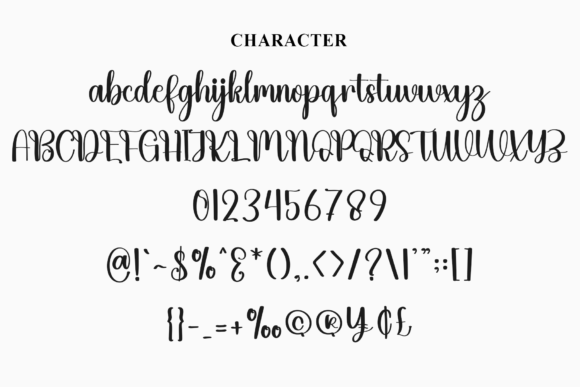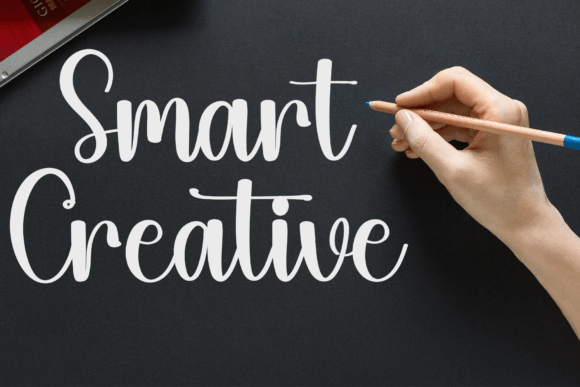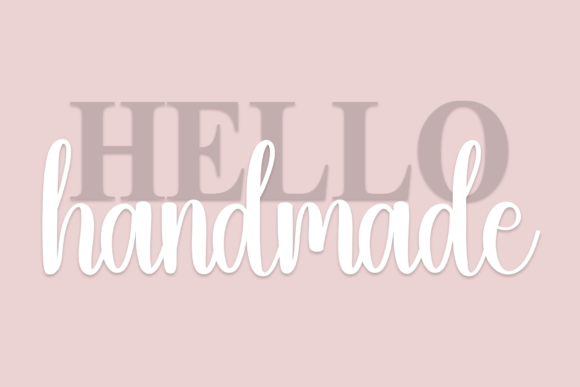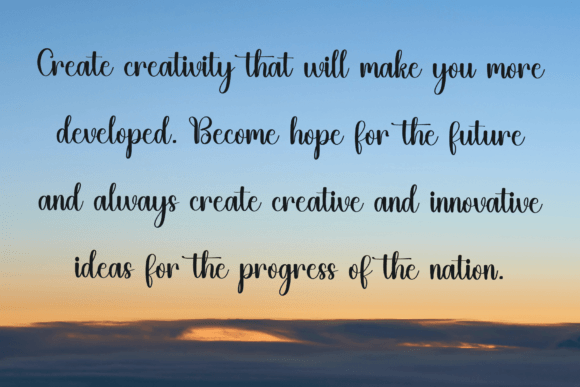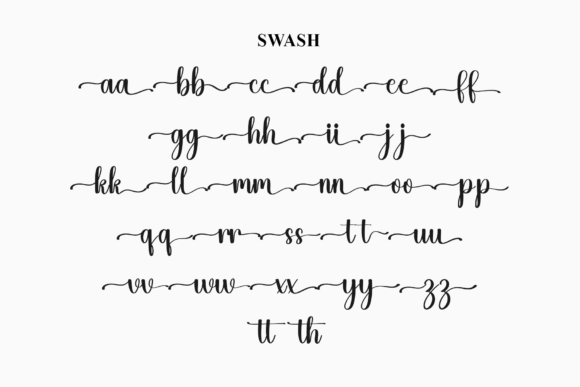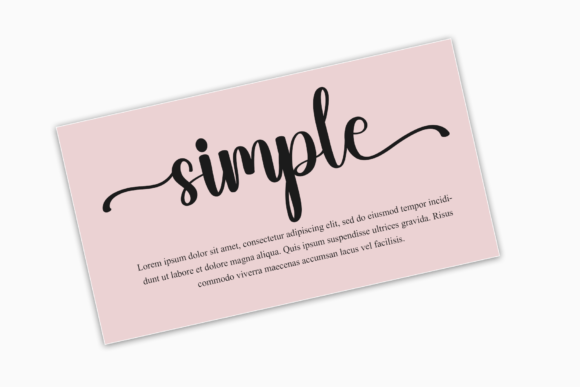
Introducing Digital: A Timeless Calligraphy-Inspired Digital Font
In the world of typography, a font can make all the difference in the aesthetic and overall impact of a design project. For designers and crafters looking to elevate their work with a touch of elegance and sophistication, the Digital font is an exceptional choice. This stylish handwritten font boasts a contemporary atmosphere and impeccable form, drawing inspiration from timeless classic calligraphy.
The Inspiration Behind Digital
The Digital font is a masterful blend of traditional calligraphy and modern digital design. Its creators sought to capture the essence of classic calligraphy, refining it to suit the demands of contemporary design. The result is a font that exudes a sense of refinement and poise, perfect for projects that require a touch of luxury and sophistication.
Key Features of the Digital Font
So, what sets the Digital font apart from other fonts in its class? Here are a few key features that make it an exceptional choice for designers and crafters:
- Contemporary Atmosphere: The Digital font has a distinctly modern feel, making it perfect for projects that require a fresh and current look.
- Impeccable Form: Each glyph and character in the Digital font has been carefully crafted to ensure that it is both aesthetically pleasing and highly legible.
- Balanced and Varied: The font features a range of weights and styles, allowing designers to create visually appealing and dynamic text arrangements.
- PUA Encoded: The Digital font is PUA (Private Use Area) encoded, which means that users can easily access a wide range of glyphs and ligatures, giving them greater creative control.
The Digital font offers a range of benefits for designers and crafters, including:
- Ease of Use: The font’s PUA encoding makes it easy to access and use a wide range of glyphs and ligatures, streamlining the design process.
- Versatility: The Digital font is highly versatile, making it suitable for a wide range of projects, from branding and advertising to packaging and digital media.
- High Legibility: The font’s clear and elegant design ensures that text remains highly legible, even at smaller sizes.
- Unique Aesthetic: The Digital font’s distinctive style and flair allow designers to create unique and eye-catching designs that stand out from the crowd.
Tips for Using the Digital Font
To get the most out of the Digital font, here are a few tips to keep in mind:
- Experiment with Ligatures: The Digital font features a range of beautiful ligatures that can add an extra touch of elegance to your designs.
- Play with Weights and Styles: Don’t be afraid to experiment with different weights and styles to create visually appealing text arrangements.
- Pair with Other Fonts: The Digital font pairs well with a range of other fonts, so don’t be afraid to experiment with different combinations.
In conclusion, the Digital font is an exceptional choice for designers and crafters looking to elevate their work with a touch of elegance and sophistication. Its timeless calligraphy-inspired design, combined with its contemporary atmosphere and impeccable form, make it a versatile and highly effective font for a wide range of projects. With its PUA encoding and range of glyphs and ligatures, the Digital font is an excellent addition to any designer’s toolkit.